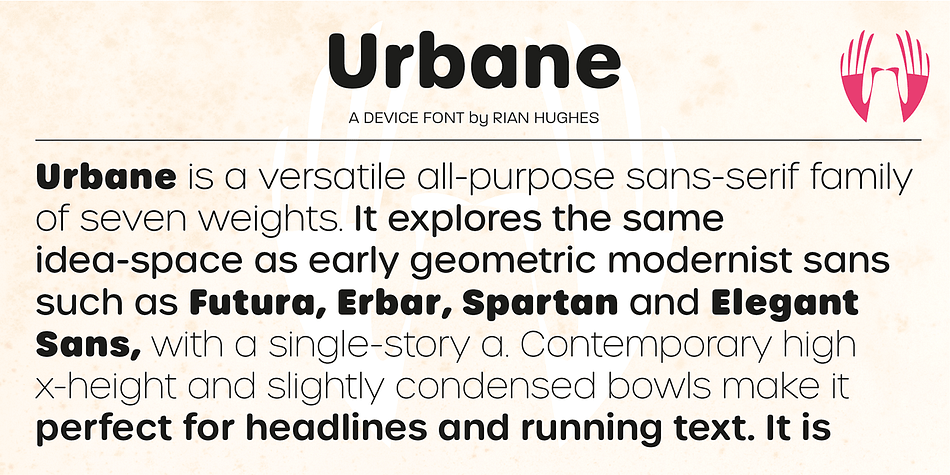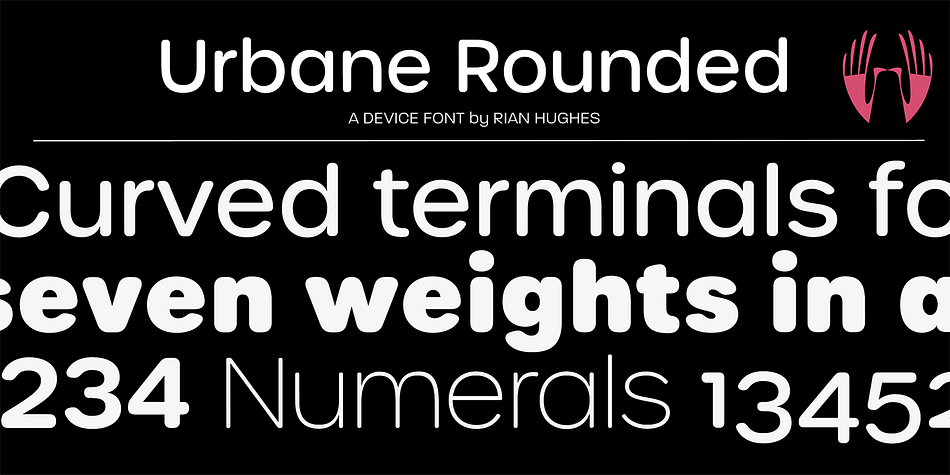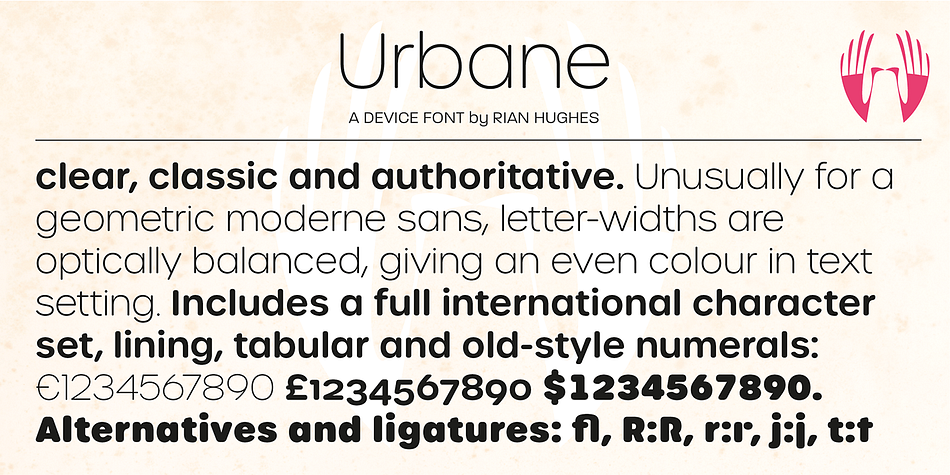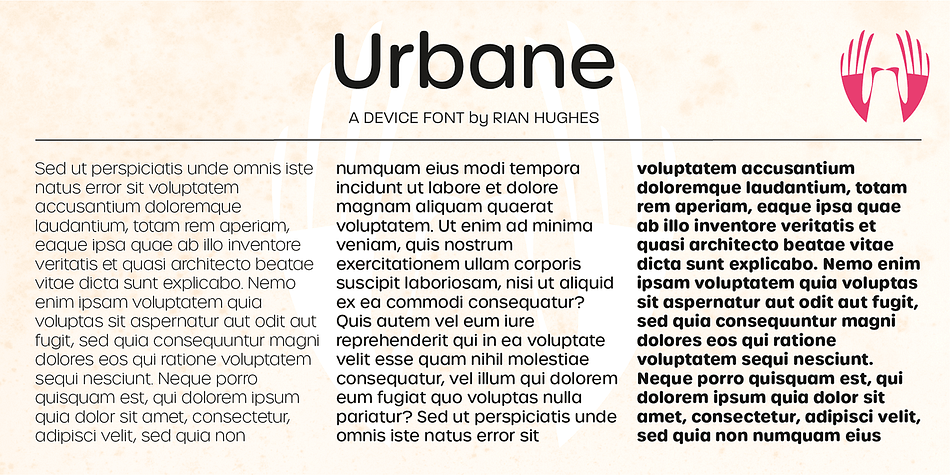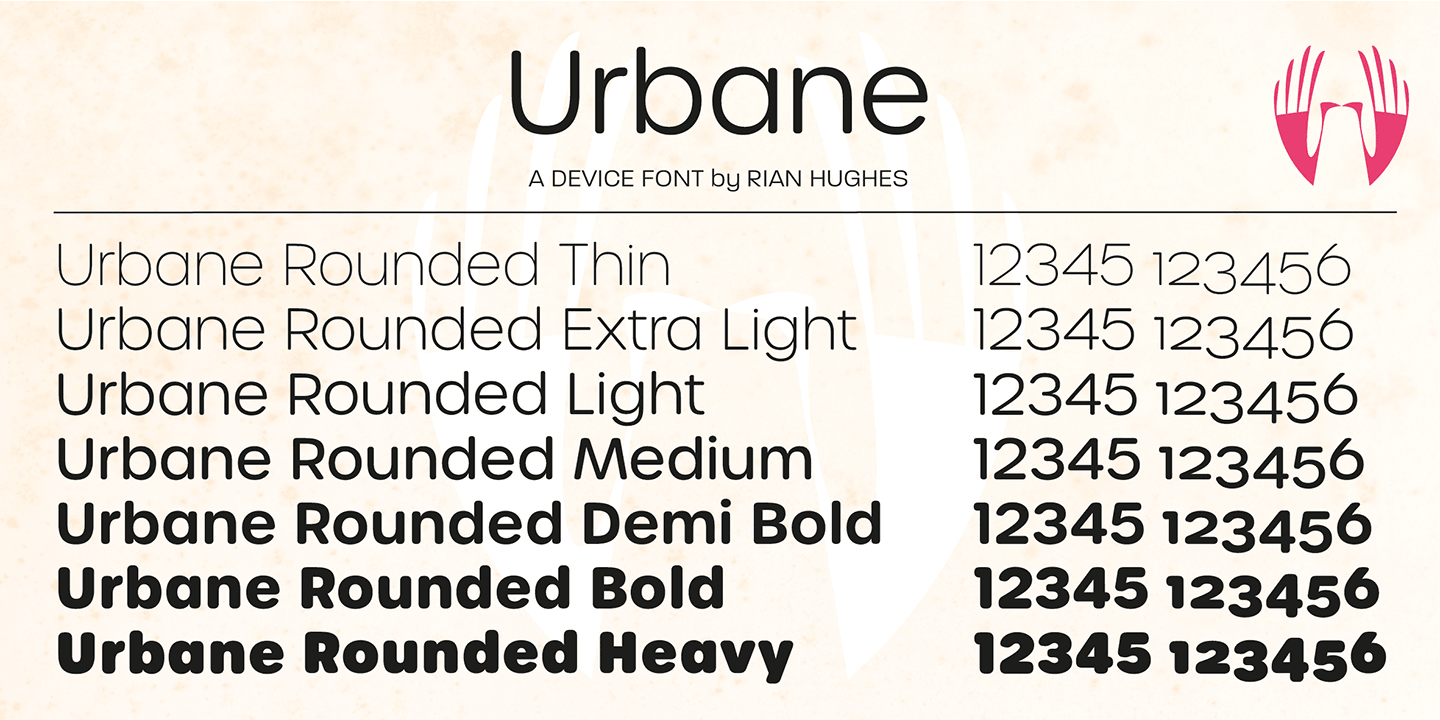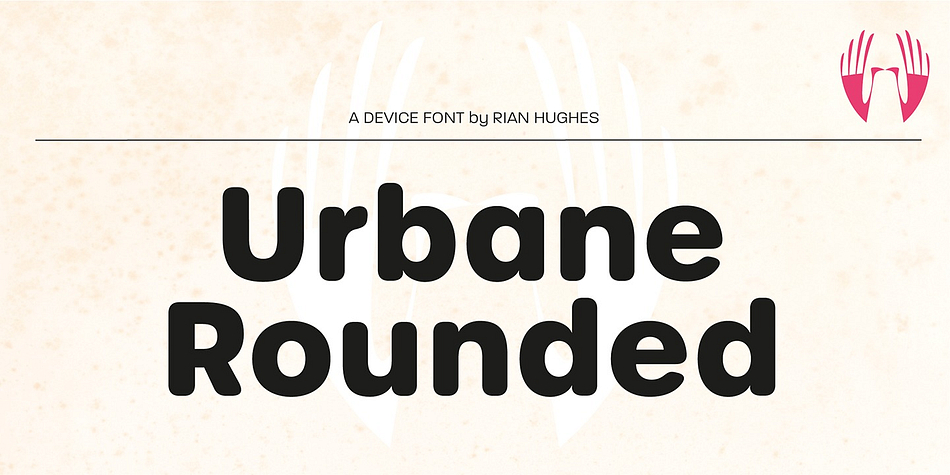
Designed by Rian Hughes, Urbane Rounded is a sans serif font family. This typeface has seven styles and was published by Device.
Urbane Rounded is a curved, friendly version of Urbane, a versatile all-purpose sans-serif family of seven weights.
It explores the same idea-space as early geometric modernist sans such as Futura, Erbar, Spartan and Elegant Sans, with a single-story a, a contemporary high x-height and very slightly condensed bowls.
Perfect for headlines and running text, it is clear, classic and authoritative. Unusually for a geometric moderne sans, letter-widths are optically balanced, giving an even colour in setting. Includes a full international character set, lining, tabular and old-style numerals.
Foundry | Device |
Designer | Rian Hughes |